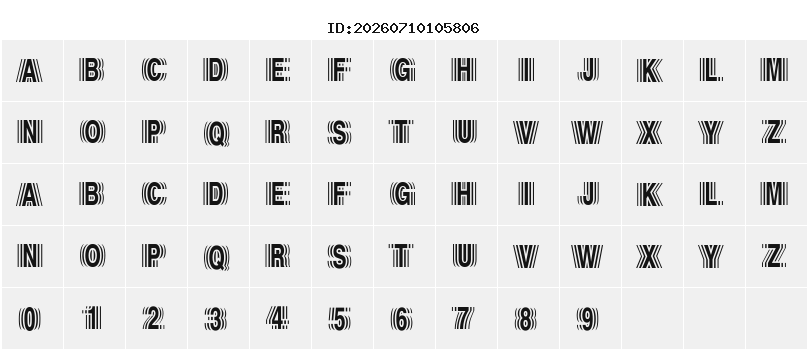
Echo Preview
• Font Name: Echo
• Full Font Name: Echo
About Echo.ttf
Echo.ttf is a modern, elegant sans-serif font designed for ultimate readability and visual harmony. Perfect for branding, headlines, web design, and print materials.